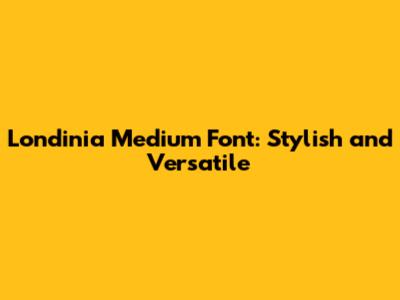
Londinia Medium Font: Stylish And Versatile
Hey guys, let's dive into the amazing Londinia Medium font! If you're on the hunt for a typeface that's both stylish and incredibly versatile, then you've hit the jackpot. Londinia Medium isn't just another font; it's a statement. It brings a touch of elegance and a whole lot of personality to any project, whether you're designing a sleek logo, crafting a catchy social media post, or laying out a beautiful website. This font has this really cool vibe that feels modern yet classic, making it a go-to choice for designers who want their work to stand out. Its medium weight strikes a perfect balance, offering readability without sacrificing visual appeal. You know, sometimes fonts can be too thin and hard to read, or too bold and overwhelming. Londinia Medium just gets it right. It's the kind of font that makes you feel like you're holding something premium, something that has been carefully crafted with attention to detail. Think about those high-end brands that just exude sophistication – Londinia Medium can help you achieve that same level of polish. We're talking about a font that can whisper sophistication or shout creativity, depending on how you use it. It’s the chameleon of the font world, adapting effortlessly to your design needs. So, if you're looking to add a touch of class and a dash of contemporary flair to your next big thing, definitely give Londinia Medium a serious look. It's the kind of font that doesn't just fill space; it enhances your message and makes your audience take notice. It’s more than just letters; it's an experience.
Why Londinia Medium is a Designer's Dream
So, what makes the Londinia Medium font such a standout, you ask? Well, guys, it's all about the details. This font boasts a unique blend of classic curves and modern sharp edges, giving it a distinctive character that's hard to replicate. Its medium weight is expertly balanced, ensuring that it's legible even at smaller sizes, which is a huge plus for web design and print materials alike. Imagine trying to read a tiny tagline on a business card – with Londinia Medium, you won't have that headache! Plus, its generous spacing between letters (kerning, for you design nerds!) makes it incredibly pleasant to read, reducing eye strain and keeping your audience engaged. It's not just about looking good; it's about feeling good when you read it. This font is a real workhorse, capable of handling everything from headlines that demand attention to body text that flows seamlessly. Think about its application: it’s perfect for branding that needs to feel both established and forward-thinking. A boutique hotel? Londinia Medium. A contemporary art gallery? Londinia Medium. A gourmet food brand? You guessed it – Londinia Medium. It's that kind of adaptable, sophisticated style that really makes a difference. And let's not forget the sheer joy of using a font that feels so well-crafted. The subtle serifs (if any, depending on the specific variant you're using, but the feel is there) add a touch of tradition, while the clean lines scream modern efficiency. It’s a beautiful marriage of old and new, designed to be timeless. When you choose Londinia Medium, you're not just picking a font; you're investing in a visual asset that elevates your entire design. It’s the secret sauce that can turn a decent design into a spectacular one. Trust me, your clients (and your own creative soul) will thank you for it. It's the kind of font that makes you feel like a design wizard, conjuring up stunning visuals with ease.
Mastering Londinia Medium in Your Designs
Alright, let's talk about how you can really make the Londinia Medium font shine in your projects, shall we? The beauty of this font is its adaptability, but like any great tool, knowing how to wield it makes all the difference. For starters, consider its use in headlines. Londinia Medium's balanced weight and elegant structure make it perfect for capturing attention without being aggressive. Pair it with a simpler, sans-serif font for body text to create a beautiful contrast that guides the reader's eye. This is a classic design trick, guys, and it works wonders! Think bold, impactful statements followed by clear, digestible information. It’s the visual equivalent of a strong handshake followed by a warm conversation. Another killer application is in branding and logos. The unique personality of Londinia Medium allows it to carve out a memorable identity for your brand. Use it for your company name, your tagline, or even as a recurring element across all your marketing materials. Consistency is key, and a distinctive font like this helps build brand recognition that sticks. Imagine a luxury skincare line using Londinia Medium for its logo – it immediately conveys quality, refinement, and a touch of exclusivity, right? It just feels right. For web design, Londinia Medium is a fantastic choice for headers, subheadings, and even call-to-action buttons. Its readability ensures that your users can navigate your site easily, while its stylish flair keeps them engaged and impressed. You can even experiment with different color palettes to make it pop or blend subtly, depending on the mood you want to create. Remember, guys, typography is a huge part of user experience. A beautiful font like Londinia Medium can genuinely enhance how people perceive your website and, by extension, your business. Don't be afraid to play with size and spacing, either. A slightly larger size for emphasis, or a bit more breathing room between letters for a more airy, sophisticated feel. The possibilities are vast, and the results are consistently impressive. It’s about finding that sweet spot where form meets function, and Londinia Medium absolutely nails it. Go ahead, experiment, and watch your designs come alive!
Font Pairing: The Secret Sauce with Londinia Medium
Now, let's spill some tea on the art of font pairing with our beloved Londinia Medium font. While Londinia Medium is a star in its own right, pairing it strategically with other typefaces can elevate your design from great to absolutely phenomenal. The key here, guys, is contrast and harmony. You want fonts that complement each other, not compete. For a classic, sophisticated look, try pairing Londinia Medium with a clean, geometric sans-serif font like Montserrat or Lato. The simplicity of the sans-serif will allow Londinia Medium's elegant details to take center stage, creating a beautiful juxtaposition of styles. This combo is killer for corporate branding, elegant invitations, or any project where you want to convey a sense of modern professionalism with a touch of flair. If you're aiming for a more modern and minimalist vibe, consider pairing Londinia Medium with a super-light or ultra-bold sans-serif. The extreme weights of the sans-serif will provide a strong contrast to Londinia Medium's balanced weight, making your design dynamic and visually interesting. Think about pairing it with Open Sans Light for body text – it’s clean, readable, and lets Londinia Medium do the heavy lifting for headlines. For a more rustic or handcrafted feel, you could explore pairing Londinia Medium with a textured serif or even a subtle script font. Just be careful here – you don't want to overcrowd the design. A great approach is to use Londinia Medium for your main titles and then a very understated, perhaps slightly distressed, serif for supporting text or quotes. This adds layers of personality and depth. The goal is to create a typographic hierarchy that is both functional and aesthetically pleasing. Londinia Medium should usually take the lead, being the more expressive of the pair, while its partner provides a solid, supportive foundation. Always remember to test your pairings! Look at them in different sizes, on different backgrounds, and in context with your visual elements. What looks good on paper might need tweaking on screen, and vice versa. Trust your eyes, and don't be afraid to iterate. A successful font pairing is like a great conversation – each voice is distinct, but together they create something harmonious and memorable. Londinia Medium is your eloquent speaker, and its partner is the attentive listener, making the whole dialogue flow beautifully.